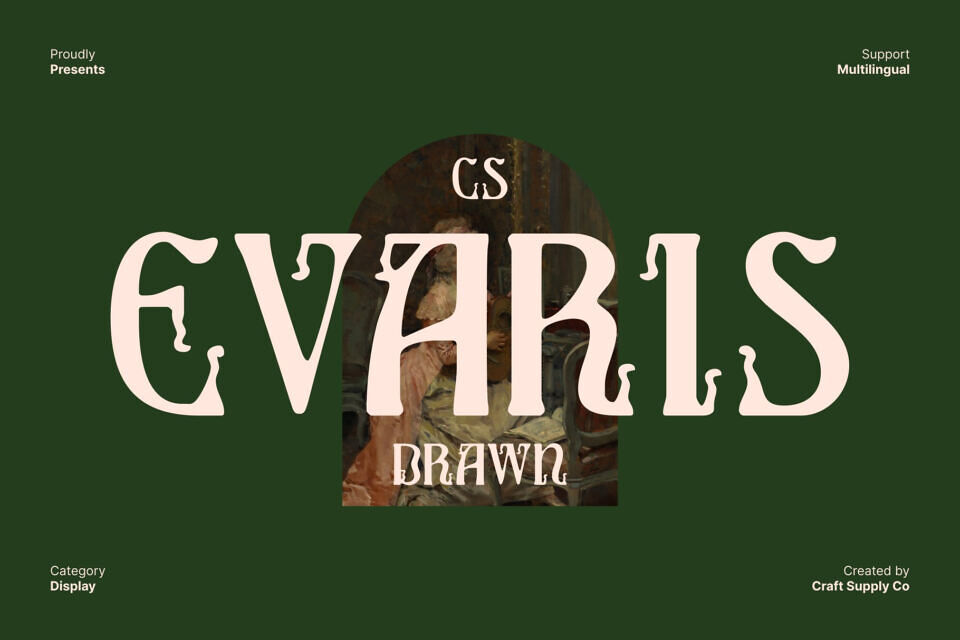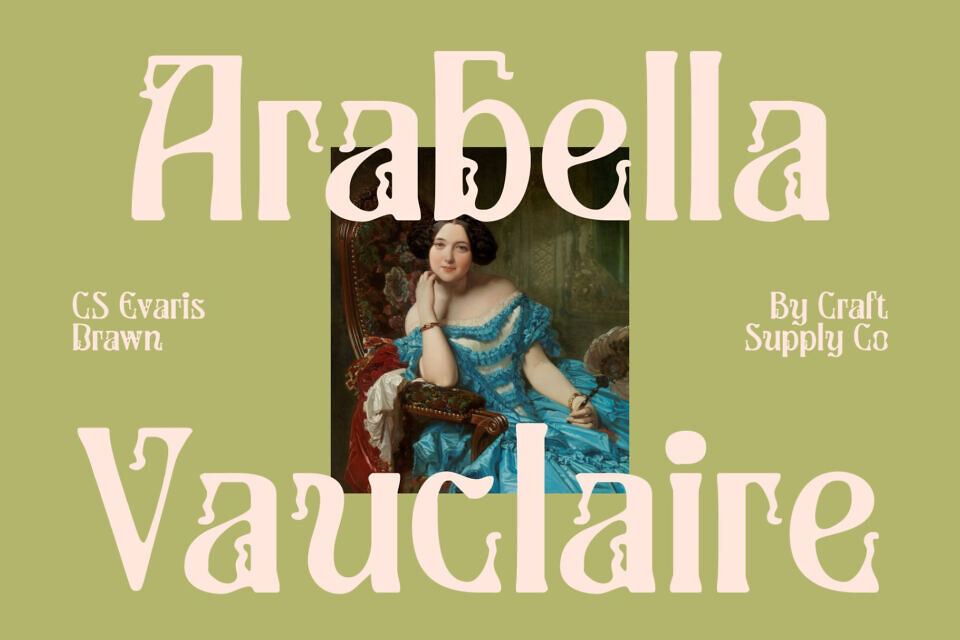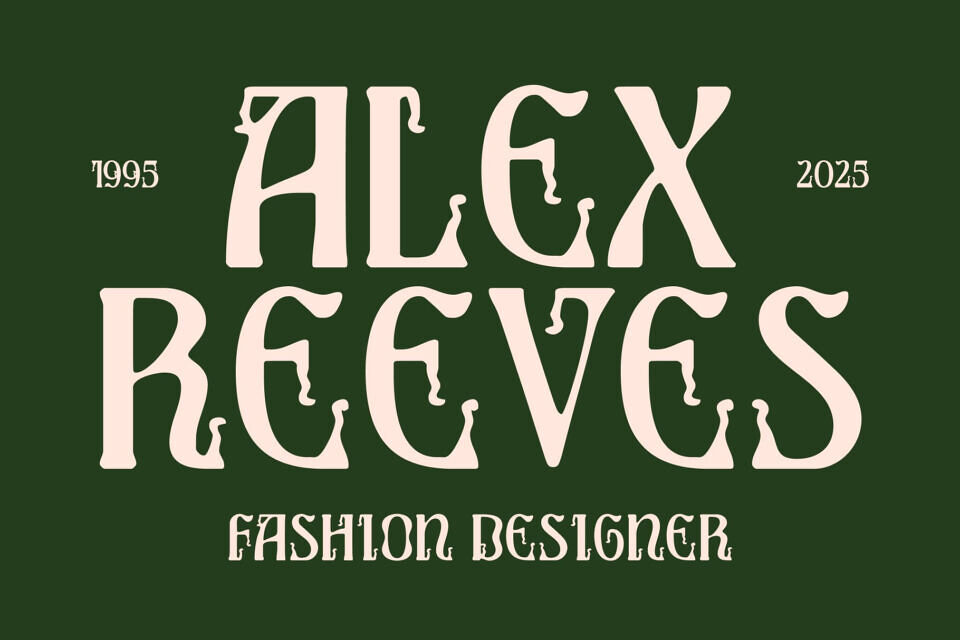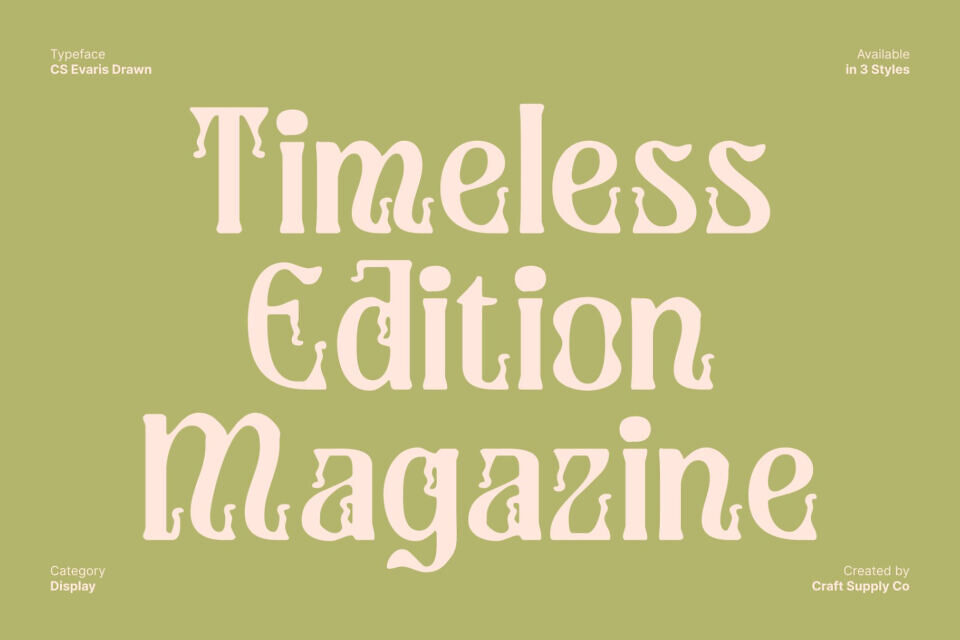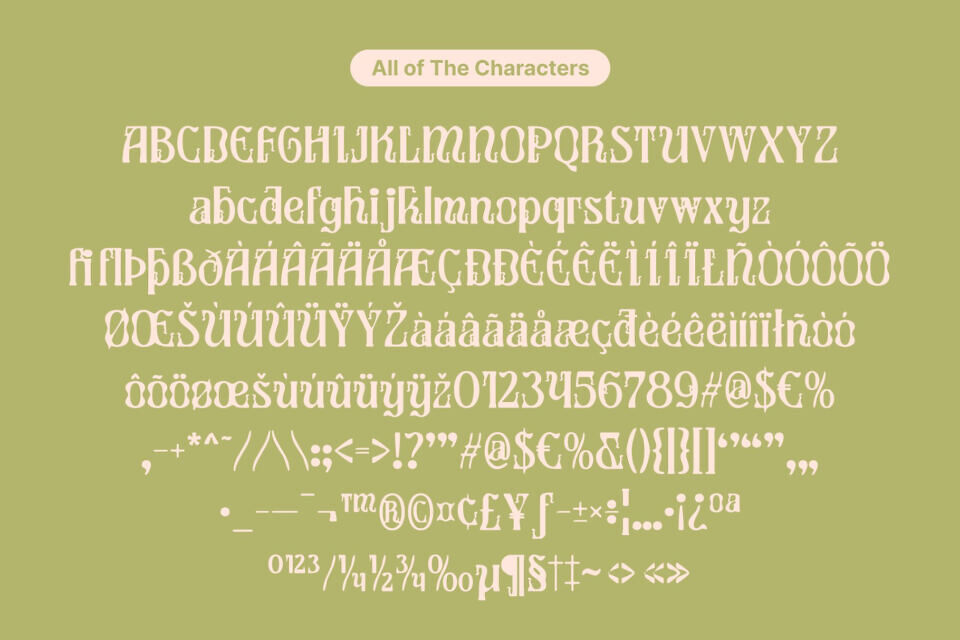
Evaris Drawn is a stylistic serif font crafted for designers who want elegance with a touch of artistry. Its refined shapes introduce a sophisticated presence, while expressive curves and crafted details bring personality into every letter. This balance of style and refinement makes it the perfect choice for high-end creative work that needs both beauty and originality.
One of the core strengths of this font lies in its decorative alternates, offering designers the flexibility to shape a tone that feels luxurious, unique, and visually captivating. These alternates expand the creative possibilities, allowing for custom wordmarks, elevated headlines, and compelling typographic statements that stand apart from traditional serif designs.